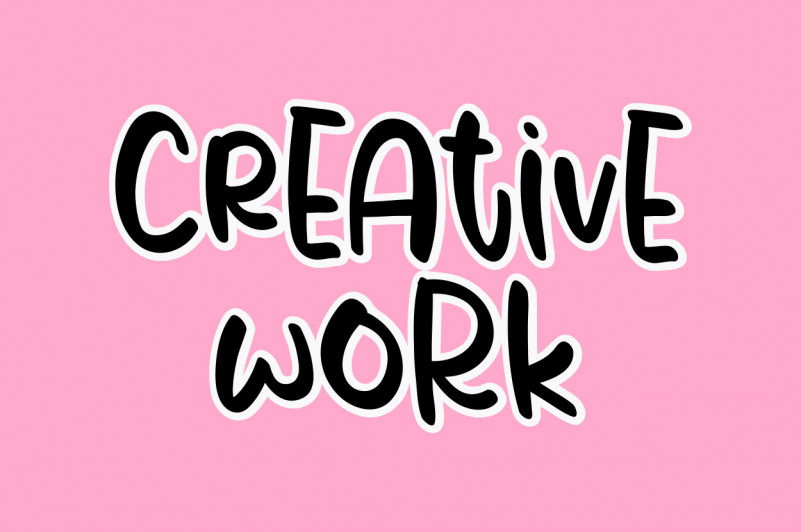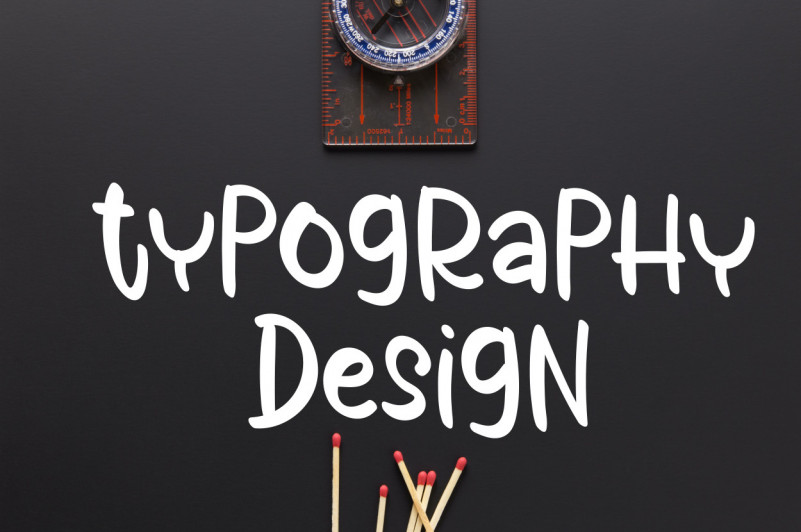
Melody Valentine Font
Melody Valentine Display Font
This is a simple and interesting display font. Its friendly feel makes this font incredibly versatile, fitting a wide range of contexts. It looks stunning on thank you cards, quote, greeting cards, logos, business cards and every other design which needs of a art. Add it to your creative ideas and notice how it makes them stand out!